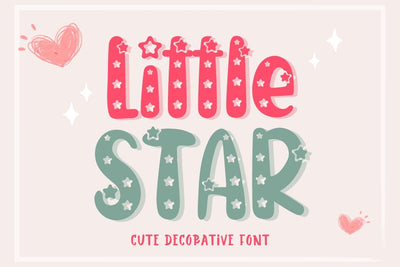
Little Star - Cute Display Font
Introducing the adorable and charming Little Star font. This cute decorative font combines handwritten elements with little stars, creating a whimsical and playful design.